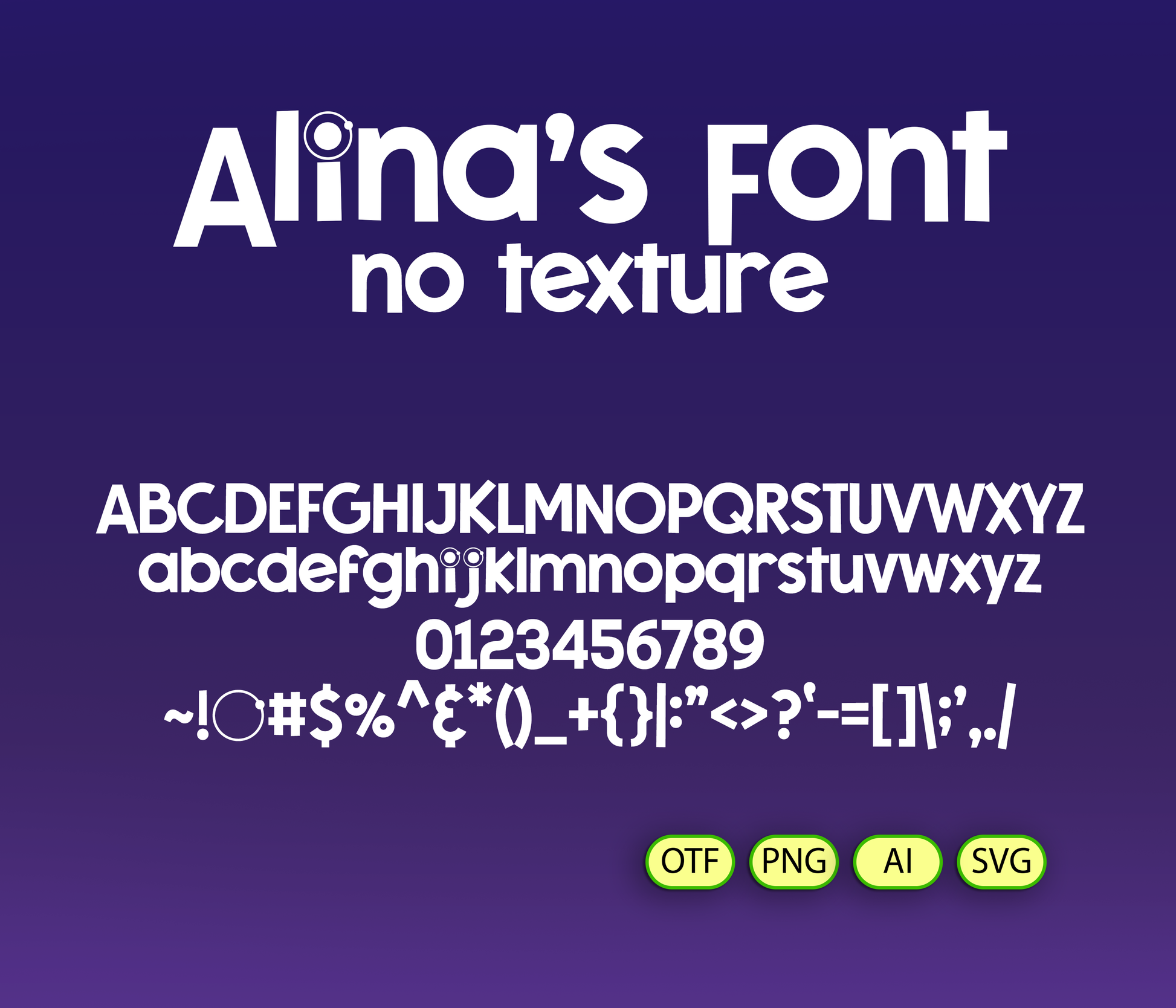
Celestial Horizons Font
Illuminate Your Designs with the Celestial Horizons Font
Introduce a touch of cosmic wonder and futuristic flair to your creative projects with our Celestial Horizons font. Perfect for fans of space adventures and modern design, this font captures the essence of the celestial aesthetic, blending sleek, contemporary lines with a touch of otherworldly charm. Whether you're crafting promotional materials, designing digital content, or creating personalized merchandise, our Celestial Horizons font ensures your projects shine with a unique and captivating style.
Our Celestial Horizons font features clean, modern lines with subtle, futuristic elements that evoke the vastness and mystery of space. This versatile font is ideal for a wide range of applications:
Our Celestial Horizons font not only captures the essence of space and futuristic design but also empowers you to bring a sense of wonder and innovation to your creative projects. Whether you're crafting promotional materials, designing unique merchandise, or adding a modern touch to personal projects, this font allows you to communicate with the sleek and captivating style of the cosmos. Ready to elevate your designs with a touch of the stars? This font is your gateway to a world of creativity and futuristic elegance.